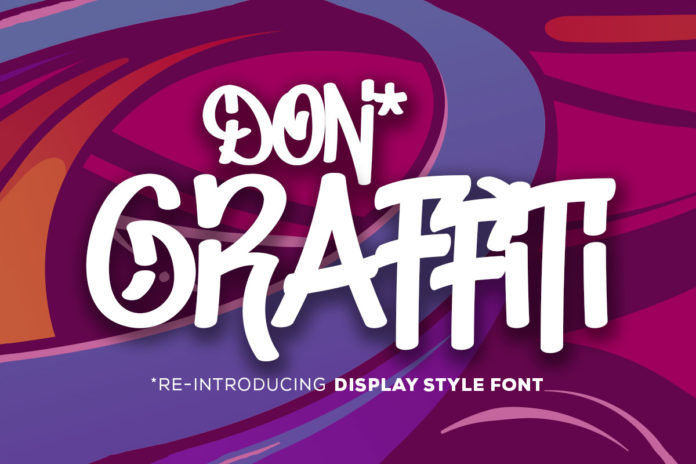
graffiti font adobe photoshop
We started by creating our text graffiti in photoshop and then we changed it with blending options and layer styles to three different graffiti effects on the wall.
Graffiti font adobe photoshop. Learn how to create graffiti art from your photos in adobe photoshop using filters and adjustments. All fonts are categorized and can be saved for quick reference and comparison. Its free to download but donations are welcome. Learn how to create graffiti art from your photos in adobe photoshop using filters and adjustments.
In this case i am using the don graffiti font at 370 px. In this graffiti text effect photoshop tutorial you learned how to use layer styles and blending options to create some cool graffiti text effects in adobe photoshop. A decorative typeface with 1 style available from adobe fonts for sync and web use. The graffiti effect is part of graffiti effect with pop up photoshop action from my portfolio on envato market.
Philly sans is a versatile font with a graffiti edge image credit.